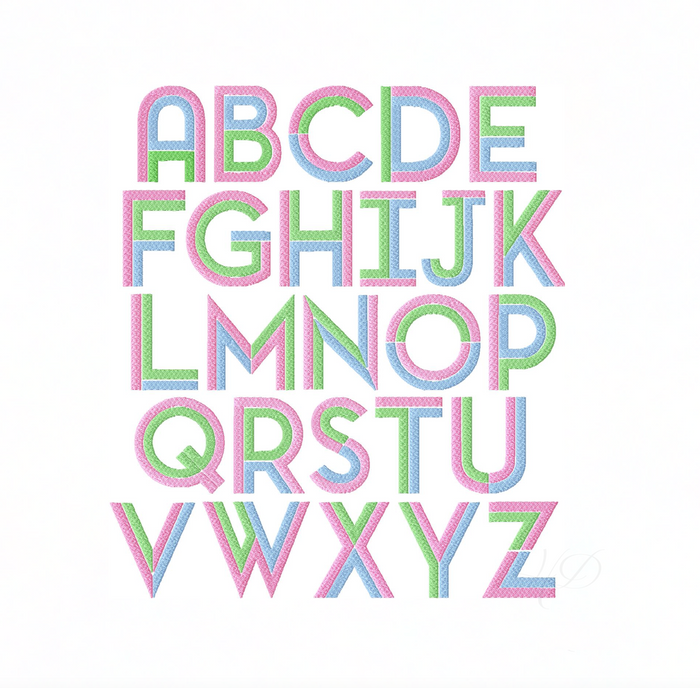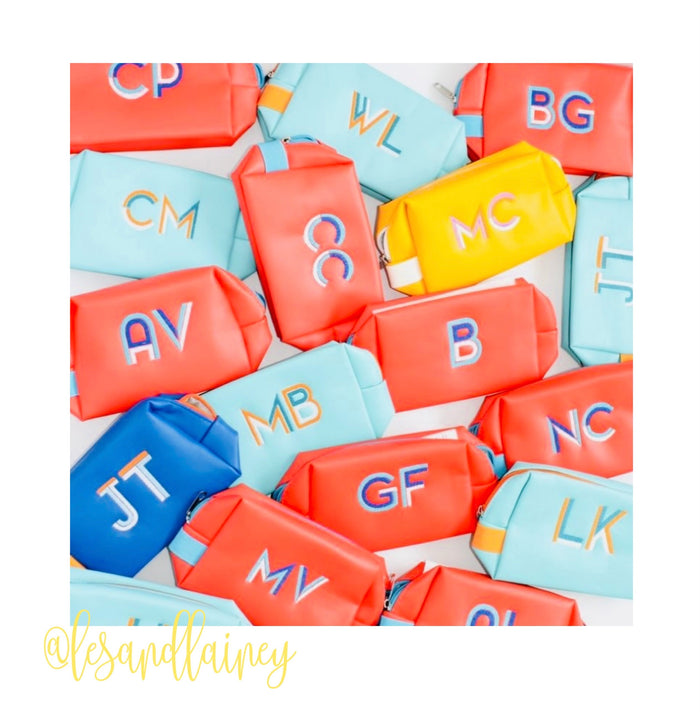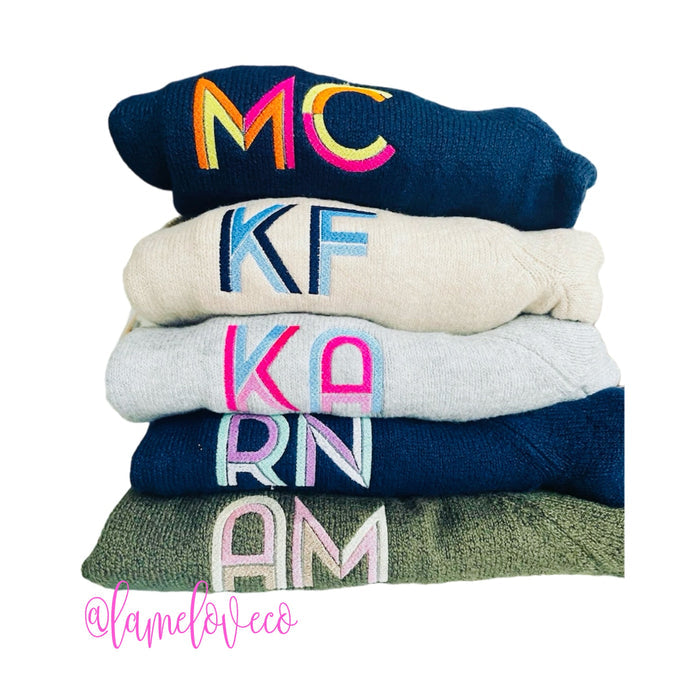
Madison Multi Fill Embroidery Font Package 4x4
Unlock your creativity with the Madison Multi Fill Embroidery Font Package. This versatile font features three beautiful colors and intricate embroidery fill stitching, making it ideal for personalized monograms and custom designs. The package includes various sizes: 1", 2", 2.5", 3", and 3.5", enabling you to choose the perfect fit for your projects.